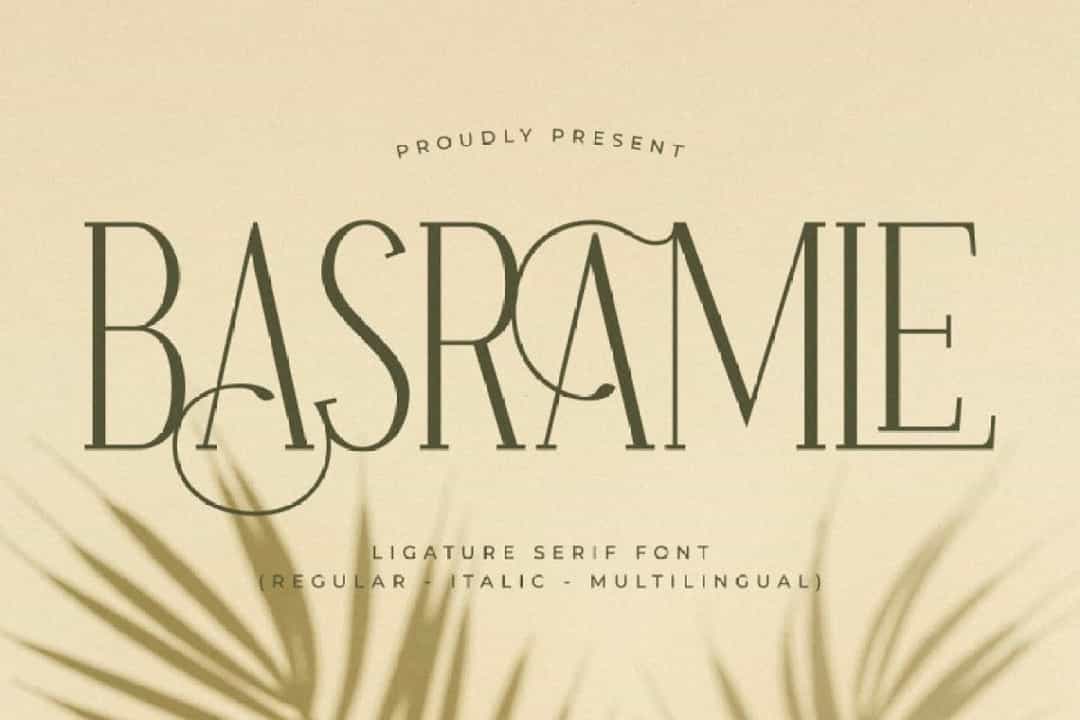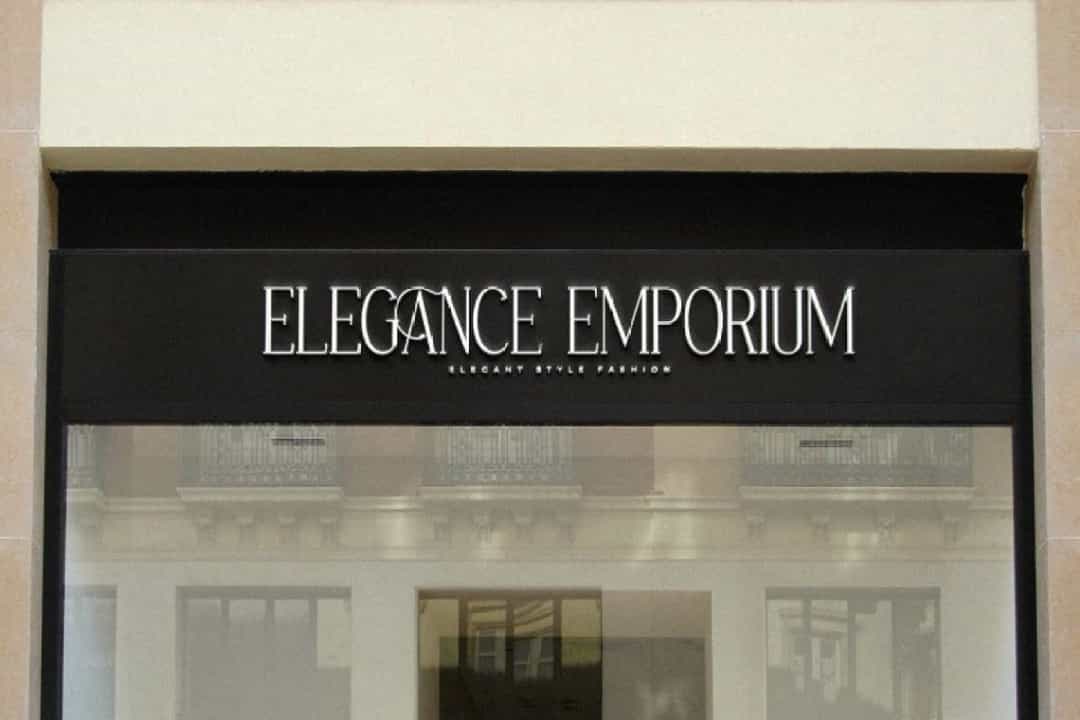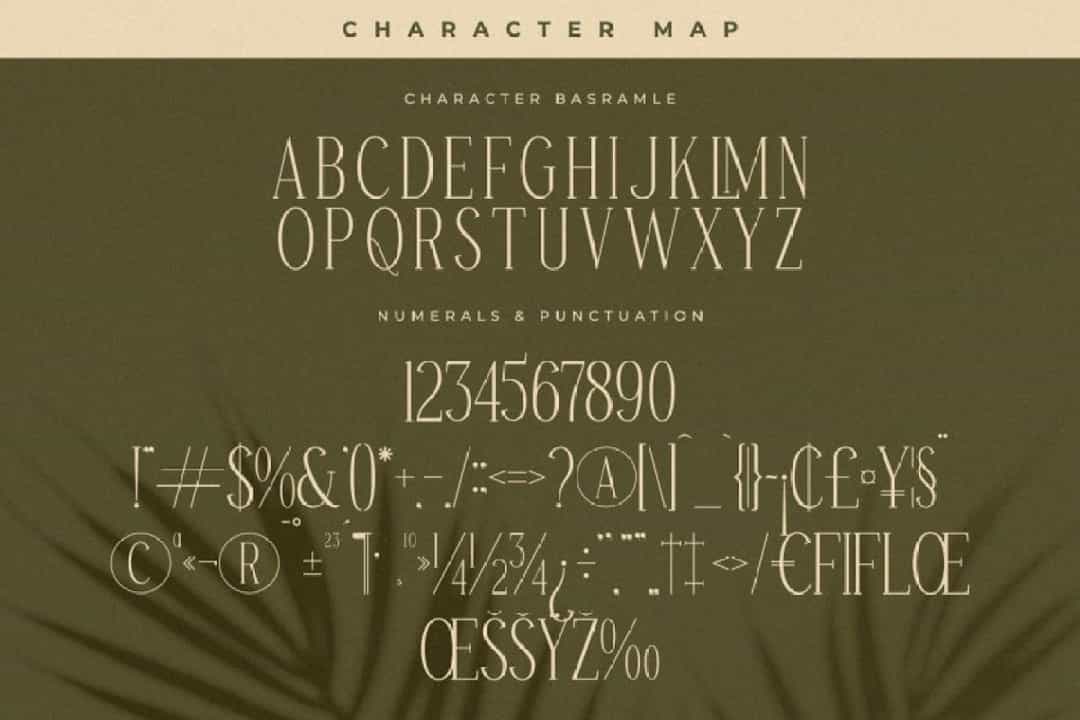
Basramle is an elegant modern typeface which consists of ligature serif typeface with distinct style and modern appearance, perfect for creating sophisticated and luxurious logos, movie or book name designs, fashion brand clothing designs, magazines letters quotes and much more.